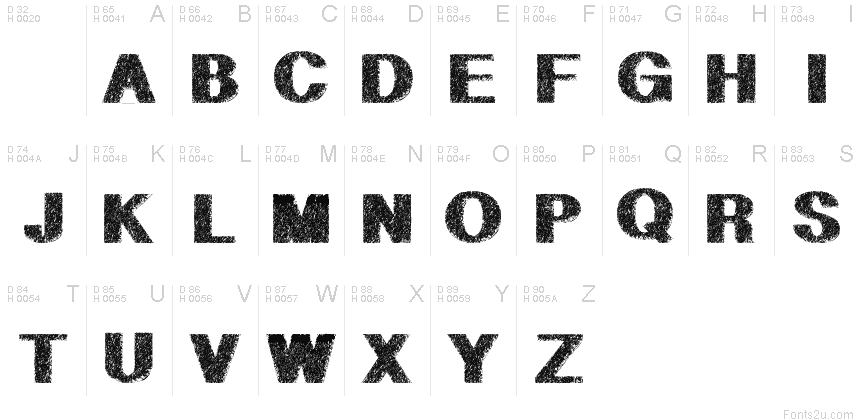
GeometricPetras
Geometric Petras font by Paulo W is a free eroded display typeface that looks like it’s been dragged across concrete and stamped back onto the page. Heavy, blocky shapes are chewed away by dense speckling, so each letter feels both solid and crumbling at the same time. The texture is gritty and almost static-like, giving headlines a raw, distressed energy that feels more like street art than clean digital type.
Using Geometric Petras, you can roughen up posters, album covers, zines, horror titles, protest graphics, and bold social media banners without needing extra texture overlays. This free font works best at large sizes where the grainy details can breathe; pair it with a plain, modern sans for body text to keep layouts readable while the eroded letters do the shouting.